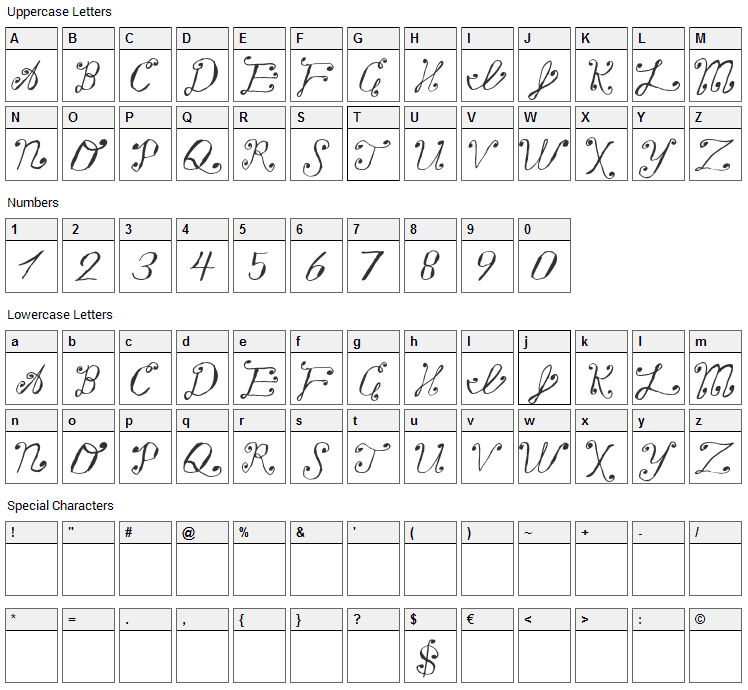
Making a List Checking it Twice Font
The Making a List, Checking it Twice font is a display cursive swash font. It is based on the design of capital cursive letters. I designed this font using a pencil, Adobe Illustrator and FontLab Studio 5. For an alternate Q, type a backslash: \. This font comes with letters, numbers and currency symbols.
Making a List Checking it Twice is a fancy, curly font designed by JLH Fonts. The font is licensed as Public Domain / GPL / OFL. Public domain fonts are free of known copyright restrictions because intellectual property rights have been forfeited by the respective author or property rights have expired. The font is free for both personel and commercial usage. For your questions, please contact the designer directly from jlhfonts.blogspot.com.